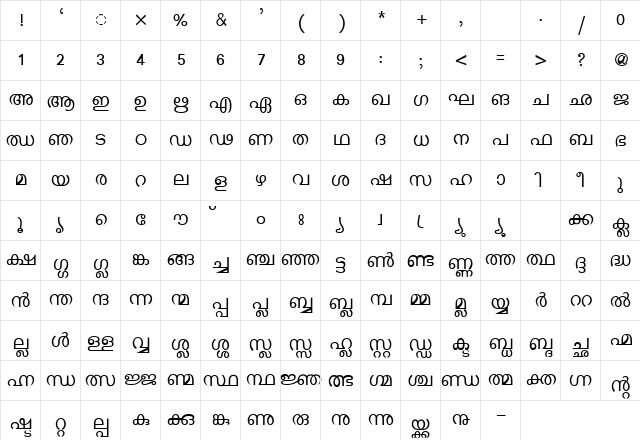
ML-TTKarthika Normal
Design Context for ML-TTKarthika Typeface
ML-TTKarthika takes a measured approach to typography — its balanced proportions and neutral character make it a reliable workhorse for both digital and print work.